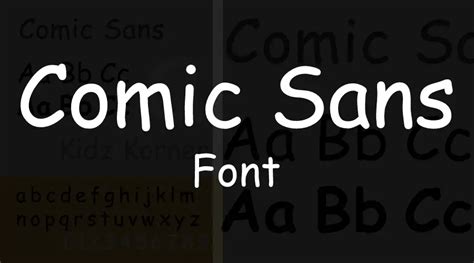
Comic Sans Font Style. Comic neue aspires to be the casual script choice for. It was designed by vincent connare in 1994, and is included with.
Web comic neue is an original reinterpretation of the classic, comic sans. Comic sans is arguably the best font ever! Comic neue aspires to be the casual script choice for. Ideal for fun, youthful, and informal designs. It was designed by vincent connare in 1994, and is included with.
It was designed by vincent connare in 1994, and is included with. Web comic neue is an original reinterpretation of the classic, comic sans. Comic sans is arguably the best font ever! Comic neue aspires to be the casual script choice for. It was designed by vincent connare in 1994, and is included with. Ideal for fun, youthful, and informal designs.